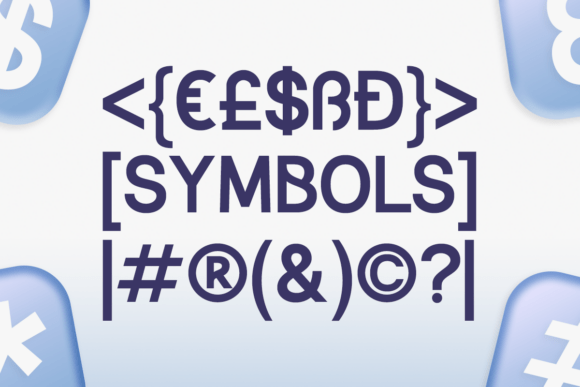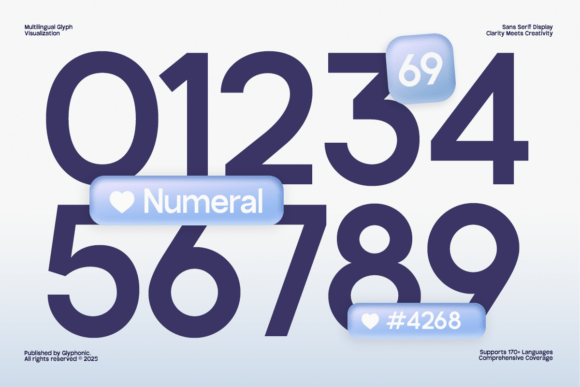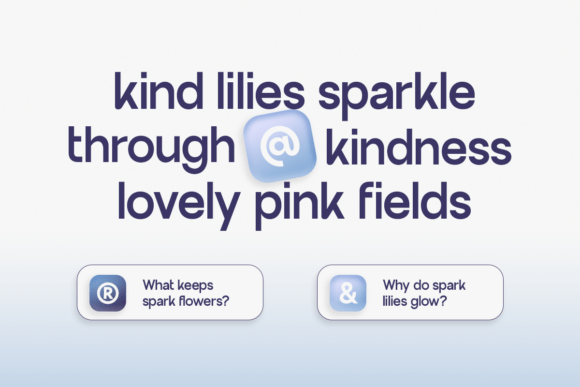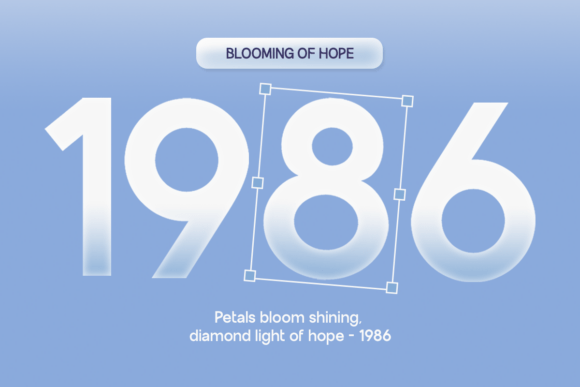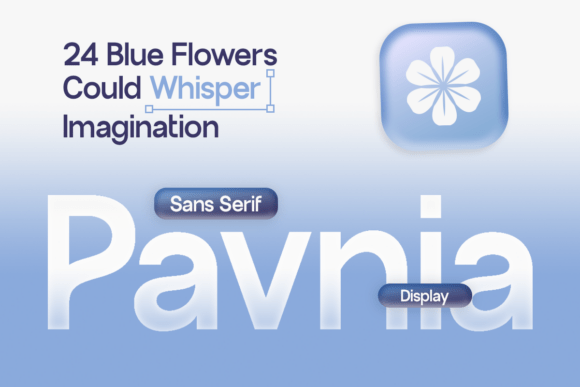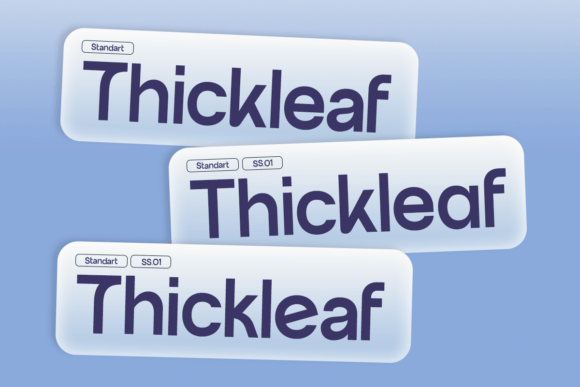
Discover the Modern Elegance of GC Palioka Font
In the world of typography, finding the perfect font that balances modern simplicity with refined character can be a daunting task. However, GC Palioka, a stylish sans-serif typeface, has emerged as a game-changer in the design realm. Designed with clean geometry and subtle softness, GC Palioka captures a contemporary aesthetic while remaining versatile and approachable. In this article, we’ll explore the features, benefits, and applications of GC Palioka, and why it’s becoming a favorite among designers and crafters.
Clean Geometry and Subtle Softness
GC Palioka’s design is rooted in clean geometry, which provides a solid foundation for its modern aesthetic. The font’s lines and curves are carefully crafted to create a sense of balance and harmony, making it perfect for a wide range of design applications. The subtle softness of GC Palioka adds a touch of warmth and approachability, setting it apart from other sans-serif fonts. This unique combination of clean geometry and subtle softness makes GC Palioka a versatile font that can be used in various contexts, from branding and editorial layouts to digital interfaces and creative displays.
Versatility and Applications
GC Palioka’s versatility is one of its standout features. This font can be used in a variety of design projects, including:
- Branding: GC Palioka’s modern aesthetic and clean lines make it perfect for logos, wordmarks, and other brand identity elements.
- Editorial Layouts: The font’s readability and elegance make it suitable for use in magazines, newspapers, and online publications.
- Digital Interfaces: GC Palioka’s clean design and smooth curves ensure a seamless user experience in digital products, such as websites, apps, and software.
- Creative Displays: The font’s confident presence and expressive qualities make it ideal for use in advertising, packaging, and other creative displays.
Extended Forms, Smooth Curves, and Confident Presence
GC Palioka’s design features extended forms, smooth curves, and a confident presence that sets it apart from other sans-serif fonts. The font’s extended forms provide a sense of openness and airiness, while the smooth curves add a touch of elegance and sophistication. The confident presence of GC Palioka ensures that your design stands out with modern elegance, making it perfect for bold headlines, sleek packaging, and minimalistic visuals.
PUA-Encoded for Effortless Customization
GC Palioka font is also PUA-encoded, ensuring effortless access to all glyphs, swashes, and alternate characters. This feature allows designers to customize their creations with ease, adding a personal touch to their designs. With GC Palioka, you can experiment with different variations and styles, making it an excellent choice for designers who value flexibility and creativity.
Make Your Design Fresh, Modern, and Stylish
In conclusion, GC Palioka is a stylish sans-serif typeface that offers a fresh perspective on modern typography. Its clean geometry, subtle softness, and confident presence make it perfect for a wide range of design applications. With its extended forms, smooth curves, and PUA-encoded features, GC Palioka delivers a sans-serif font that feels both professional and expressive. Whether you’re a designer or crafter, GC Palioka is an excellent choice for anyone looking to add a touch of modern elegance to their creations. Make your design fresh, modern, and stylish with GC Palioka.
| Author | Glyphonic |